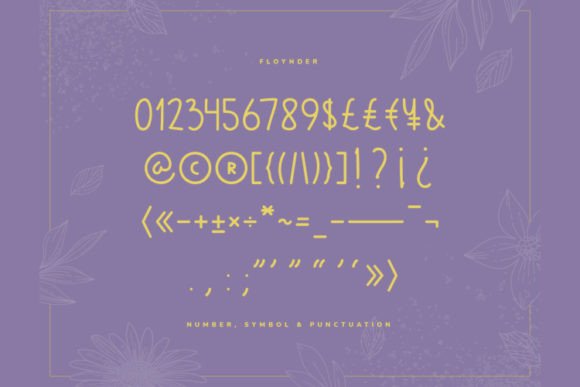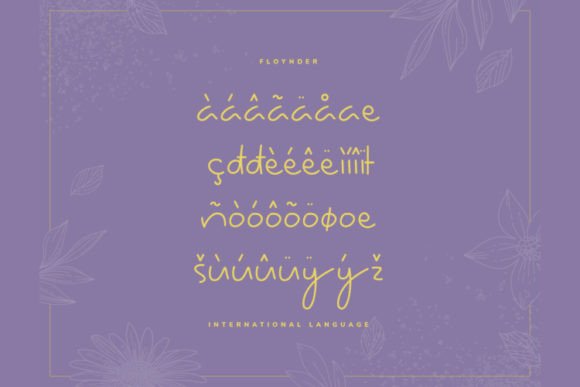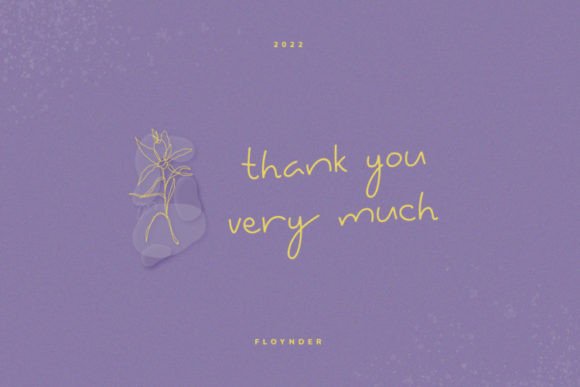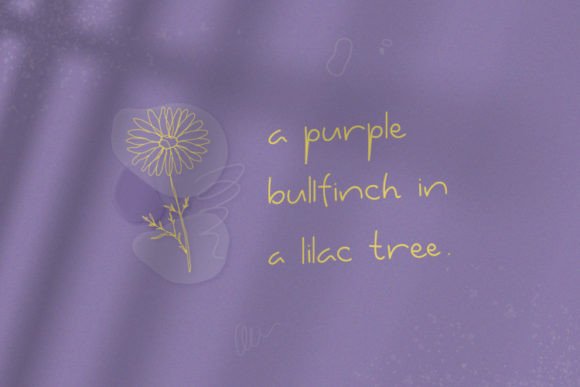
About Floynder Font
Floynder is a lively and friendly handwritten font designed to infuse a sense of fun into your creative projects. Whimsical and slightly quirky, this font carries a playful charm that is sure to brighten up each of your designs. Feel confident as you incorporate Floynder into your projects, and you’re bound to love the vibrant and cheerful results it brings.
The fun factor of Floynder is immediately apparent, making it a delightful choice for projects that require a touch of lightheartedness. The handwritten style adds a personal and unique flair, giving your designs a sense of warmth and approachability.
Floynder’s whimsical and quirky elements set it apart, making it ideal for projects that call for a bit of playfulness. Whether used in branding, posters, or any other creative endeavor, this font brings a sense of joy and character to the forefront.
Adding Floynder to your projects is an invitation to embrace its lively and friendly nature. It’s a font that exudes positivity and energy, making it perfect for designs where you want to leave a lasting and cheerful impression.
In summary, Floynder is more than just a font; it’s a design companion that injects fun and friendliness into your projects. As you confidently incorporate Floynder into your creative endeavors, you’ll find that its whimsical charm brightens up your designs and leaves you with results that bring a smile to your face.